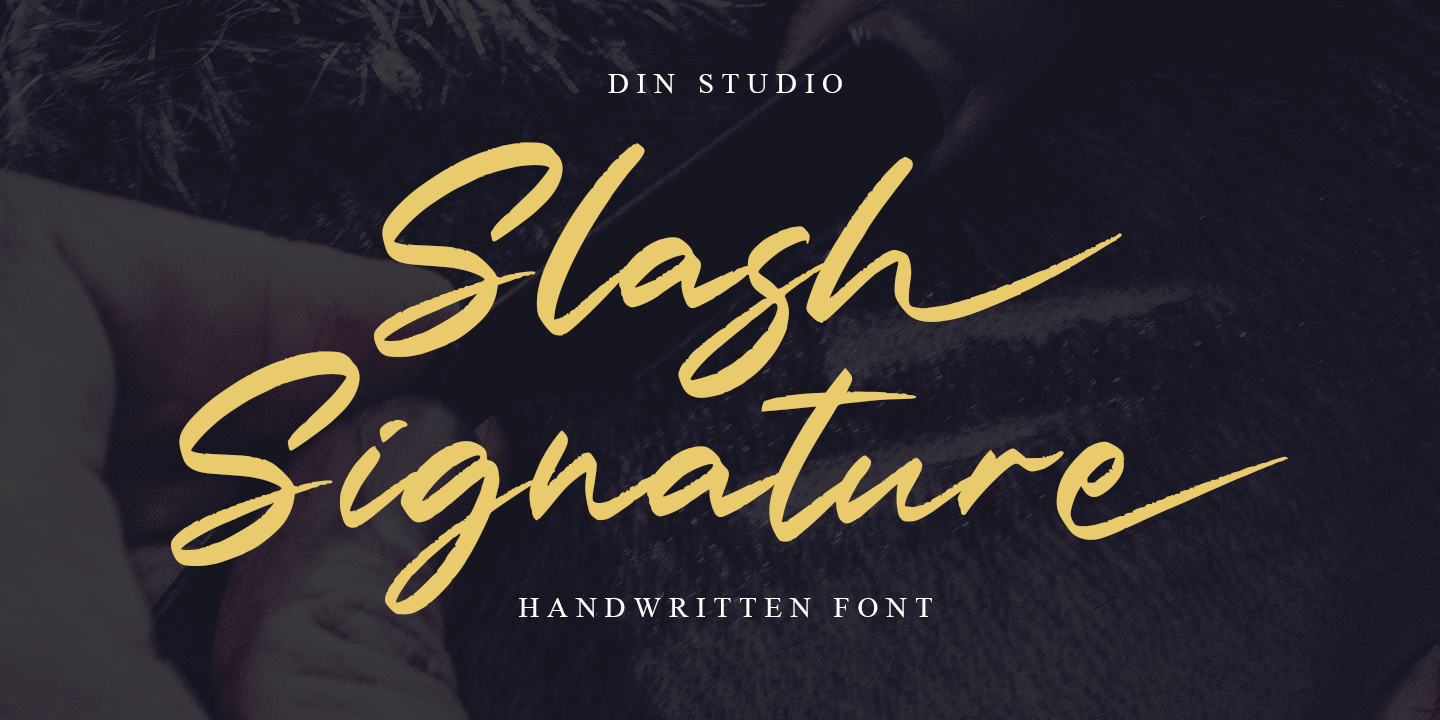
Slash Signature Font demonstrates exceptional versatility across personal branding applications including executive signature designs, luxury brand endorsements, high-end business cards, personal logo creation, exclusive invitation designs, celebrity autograph styling, premium letterhead graphics, artistic portfolio signatures, handwritten quote designs, and sophisticated personal identity materials. This distinctive typeface seamlessly combines handwritten authenticity with bold character strokes, making it an invaluable resource for designers working on projects that require personal touch, executive presence, and memorable signature aesthetics.
What makes Slash Signature Font particularly exciting is its dynamic representation of confident handwriting that captures the bold, decisive strokes of an executive signature combined with the artistic flair of a master calligrapher's personal mark. The font features flowing letterforms with distinctive slash-like elements and confident flourishes that create an unmistakable sense of authority and personal style. Its expressive design incorporates natural handwriting variations with stylized boldness, creating perfect balance between authentic personality and professional impact. The typeface's ability to convey both individuality and executive confidence makes it perfect for personal brands seeking to establish memorable identity while maintaining sophisticated credibility. Each character has been carefully crafted to maximize personal impact while ensuring consistent signature quality across various applications, from intimate business correspondence to large-scale personal branding campaigns.
The Slash Signature Font family encompasses expressive variations including Light, Regular, Bold, and Ultra Bold weights, each maintaining the core signature aesthetic while offering different levels of personal presence and executive authority. The family also features script variations that enhance the handwritten quality and condensed styles for space-efficient signature applications. Special signature cuts may include flourished versions with extended swashes, simplified variants for smaller applications, and decorative styles that amplify the font's personal character for premium individual branding and executive communication materials.
Personal branding professionals consistently choose Slash Signature Font Free Download for projects requiring authentic signature appeal and executive personal communication. This exceptional typeface has gained recognition in the luxury market for its ability to create distinctive personal identity and memorable signature presence through expertly crafted handwritten typography. The font's specialized OpenType features include signature alternates, personal ligatures, and executive flourishes that support comprehensive personal branding and individual identity communication needs.
Whether you're developing executive personal branding, creating signature logo designs, designing luxury personal stationery, or crafting individual identity materials, Slash Signature Font delivers outstanding results. Its signature aesthetic makes it particularly appealing to executives, celebrities, personal brands, luxury service providers, and individual professionals seeking to communicate authority, personality, and memorable personal presence through their visual identity.
The font's technical specifications ensure optimal performance across all personal branding applications while preserving its authentic signature character. It includes comprehensive character encoding that supports international personal markets, making it suitable for global executive brands and multilingual signature projects. The careful optimization guarantees consistent rendering across various personal media, maintaining the font's handwritten qualities whether displayed on digital business cards or reproduced on luxury personal stationery.
Professional designers value Slash Signature Font's ability to convey personal authority and individual character while maintaining commercial effectiveness and brand recognition. Its bold presence creates immediate personal connection and executive credibility while remaining highly functional for comprehensive personal branding systems. The font's signature-inspired design helps individuals establish distinctive market presence while connecting with audiences who value authentic personality, executive confidence, and memorable personal expression.